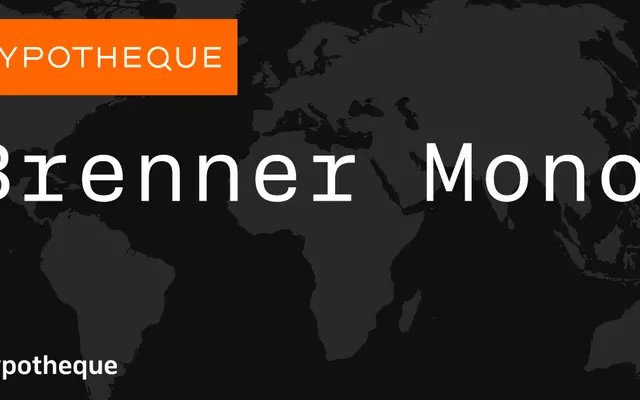
Brenner Mono
The monospaced branch of Typotheque's Brenner system, available in four weights with italics and a variable font.
Brenner Mono sits within the wider Brenner family from Typotheque, offering a fixed-width counterpart to the broader type system. Four weights run from Light to Bold, each with a matching italic, and a variable font version covers the full range in a single file. Latin script coverage is provided across all styles.
Explicitly a monospaced family, part of the broader Brenner type system from Typotheque. Fixed-width design with multiple weights and italics, plus a variable font offering.